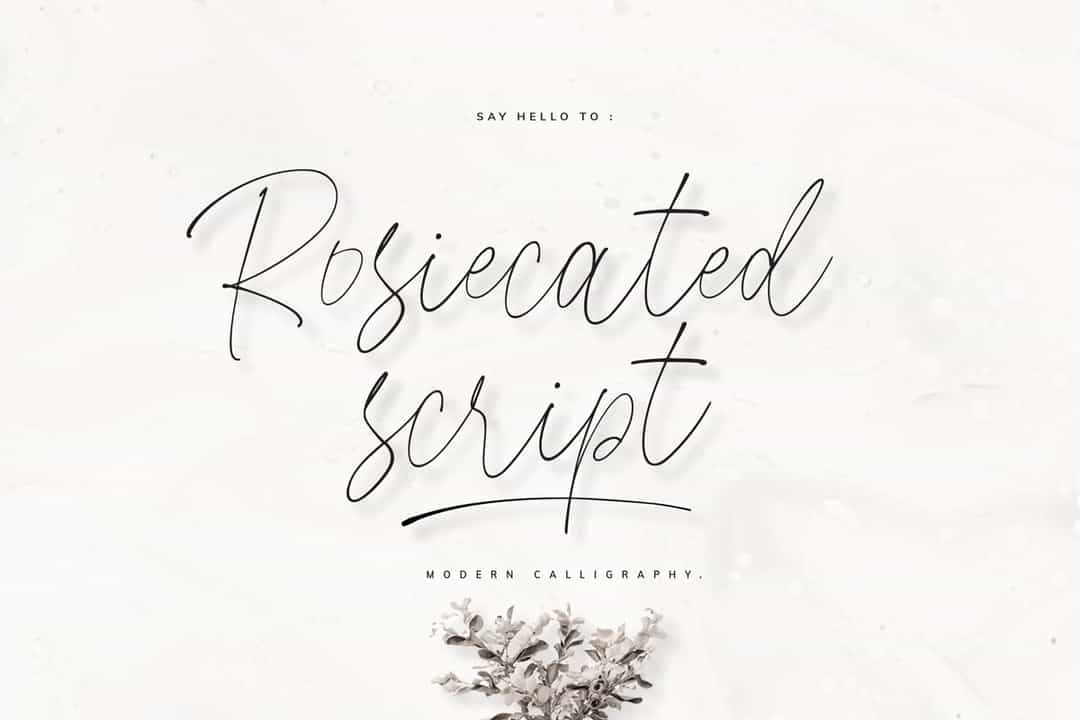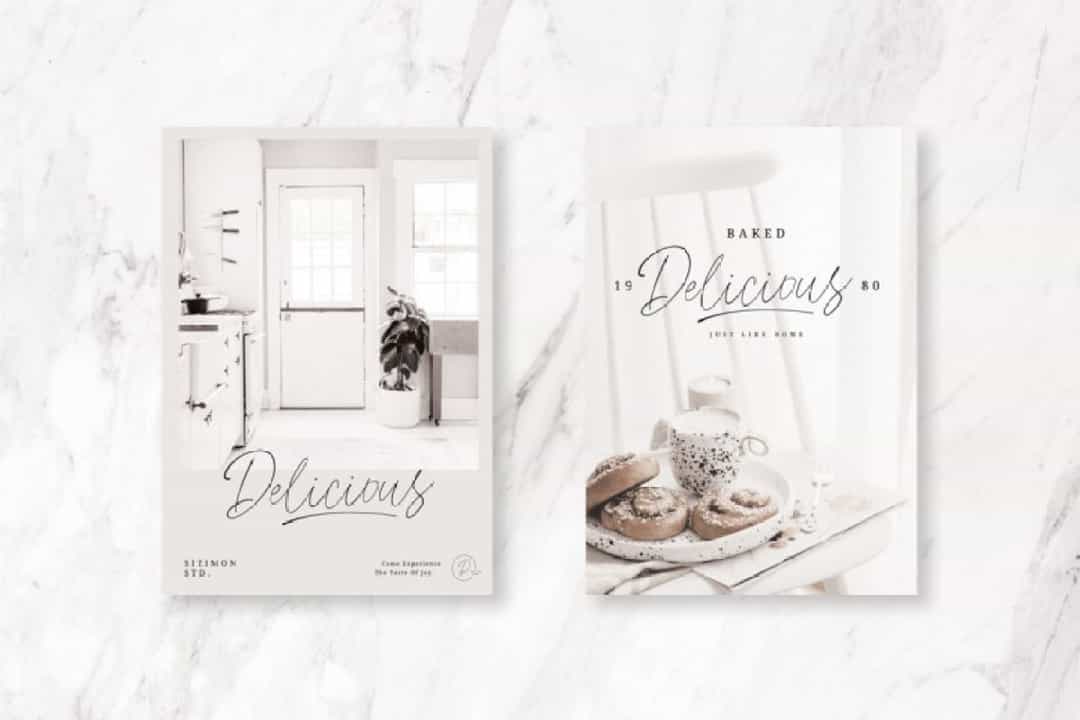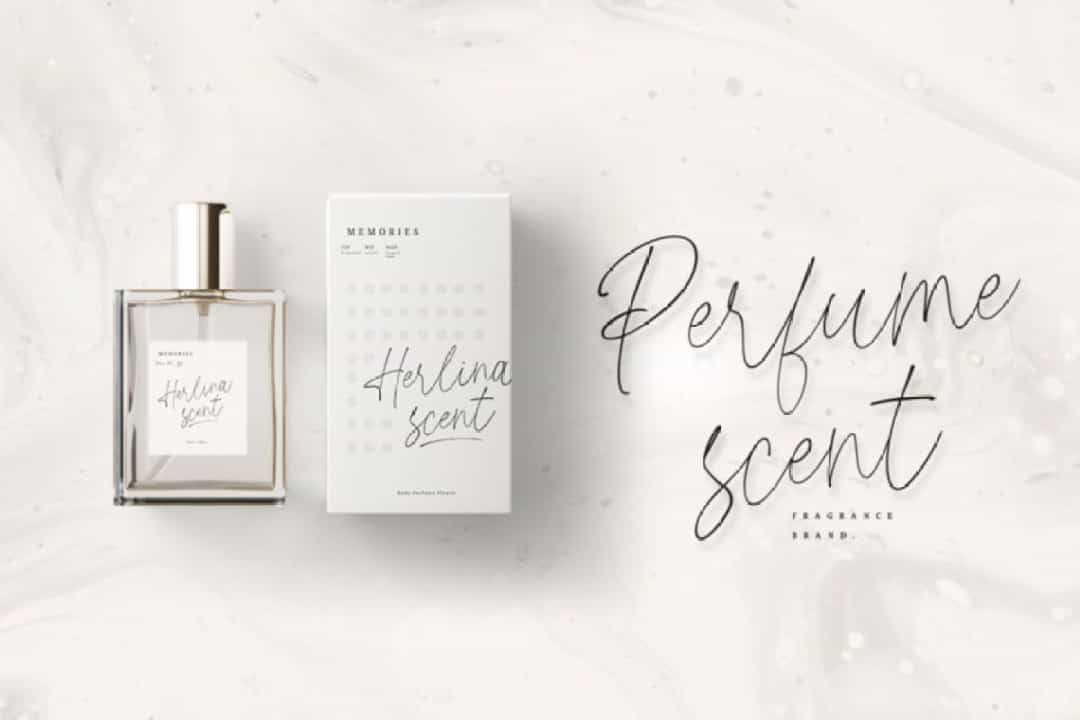
We are glad to present our New Collection, it is beautiful and tender. We denote it as Rosiecated font for its fashionable modern handwritten style with casual design features that is both fashionable and feminine – the font will make an excellent choice for wedding invitations, thank-you cards and quotes, greeting cards and logos, business cards celebration invitations graduation party invites and birthday gatherings etc.